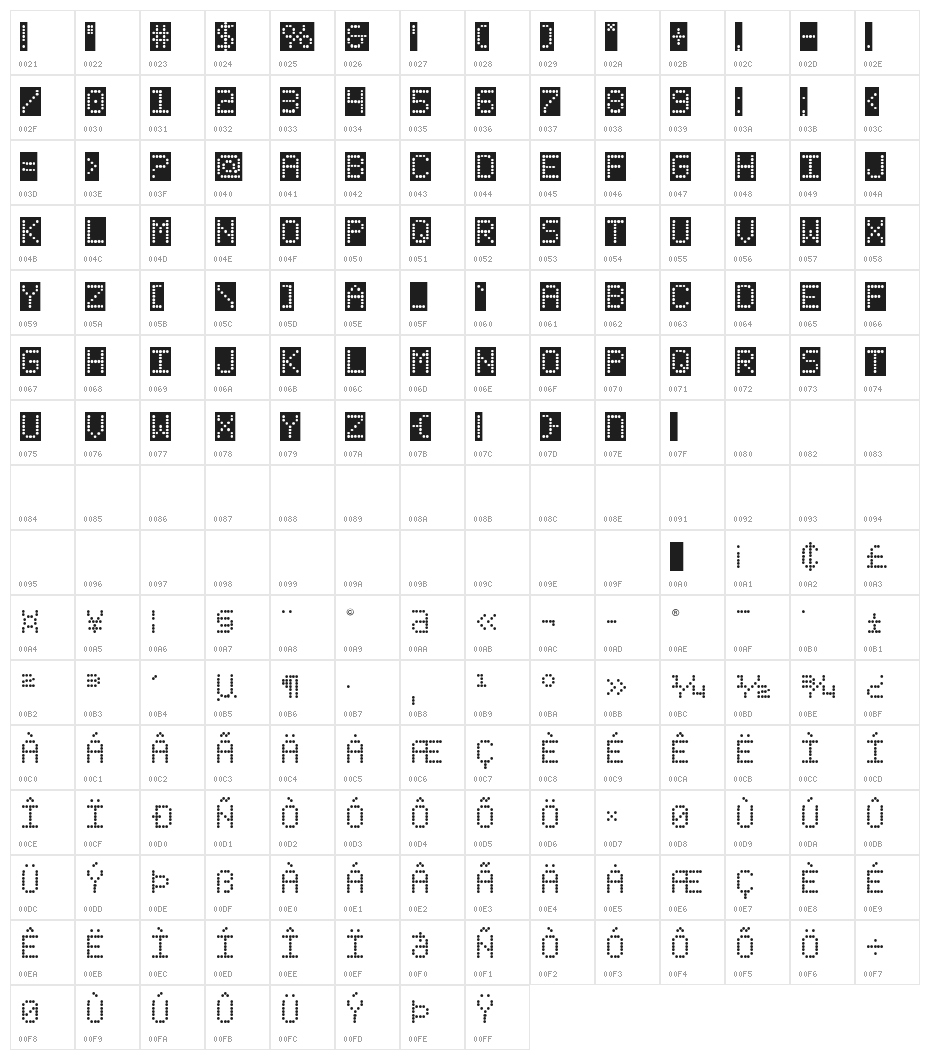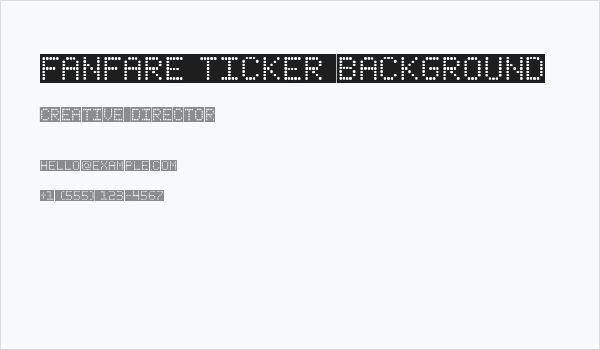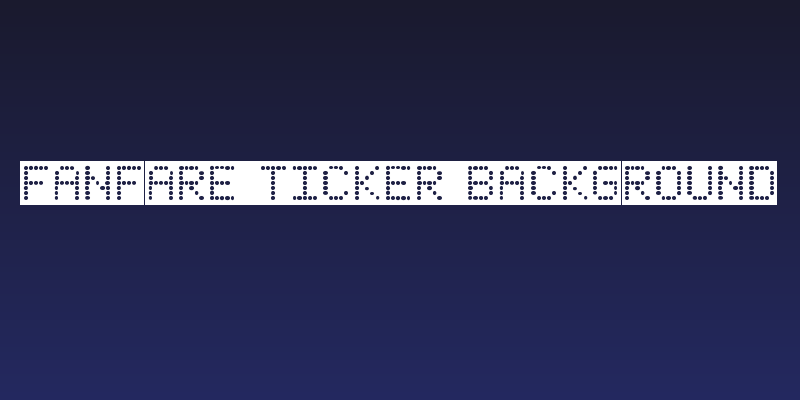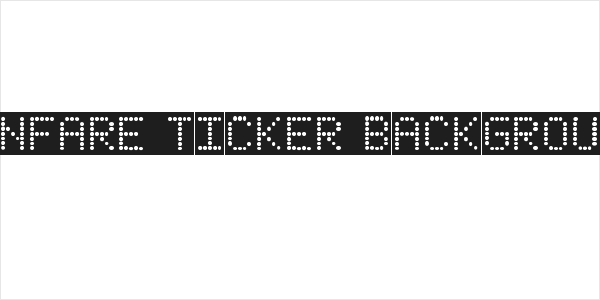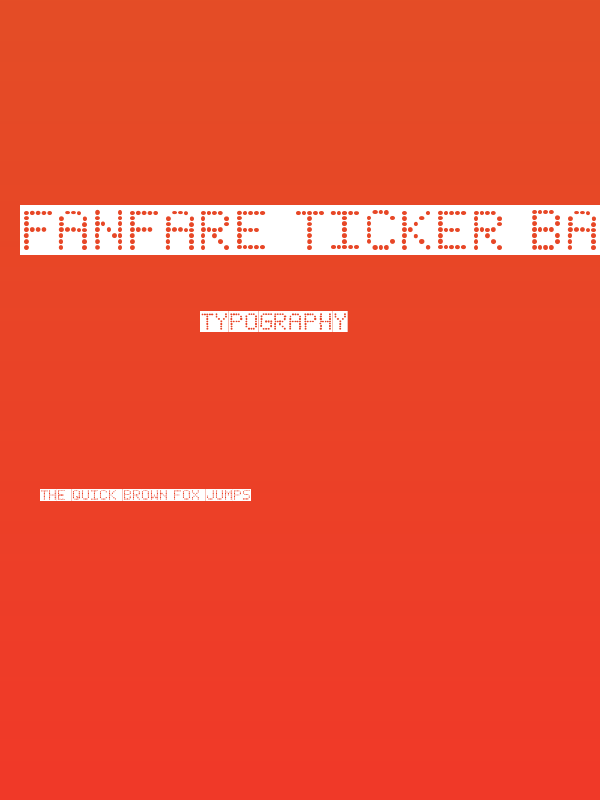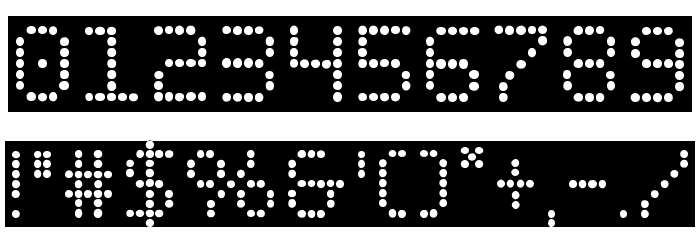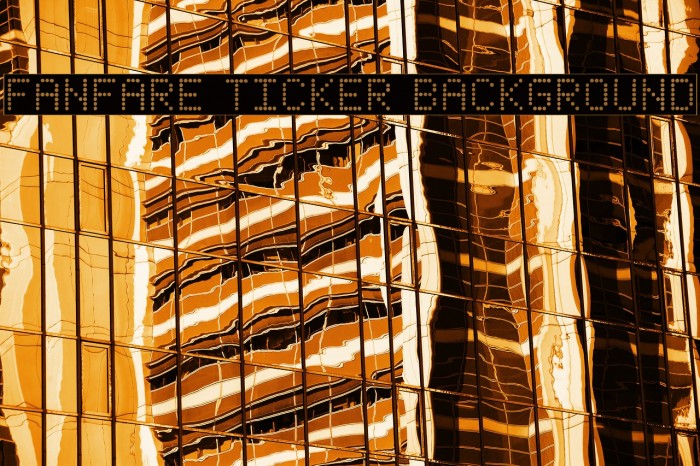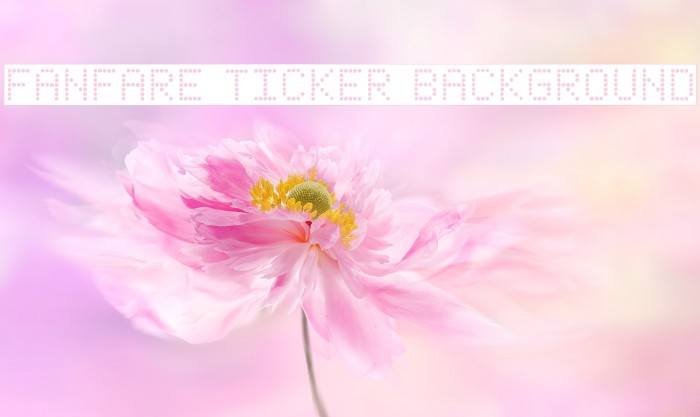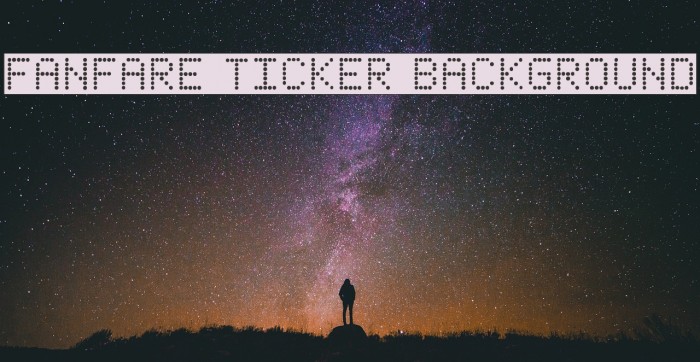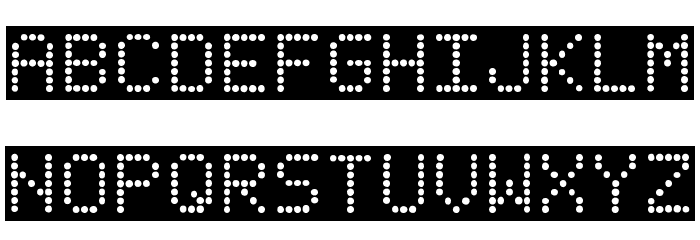
Fanfare Ticker Background Font
Fanfare Ticker Background Description
This font features a unique dot matrix design, reminiscent of old-school LED displays or ticker tapes. Each character is constructed from a grid of dots, creating a digital and retro aesthetic. The uppercase and lowercase letters, as well as numbers and special characters, maintain a consistent style, making it highly recognizable and distinct. The uniformity of the dot pattern across all characters ensures readability while adding a playful, tech-inspired touch. This font is ideal for projects that require a vintage digital look or a nod to early electronic displays.
| Use Case | Headlines, Logos, Digital Displays |
| Proposed Projects | Perfect for digital-themed designs, retro video game graphics, tech event posters, or any project needing a nostalgic electronic feel. |